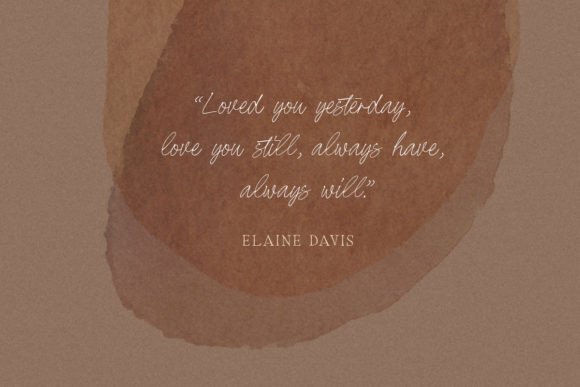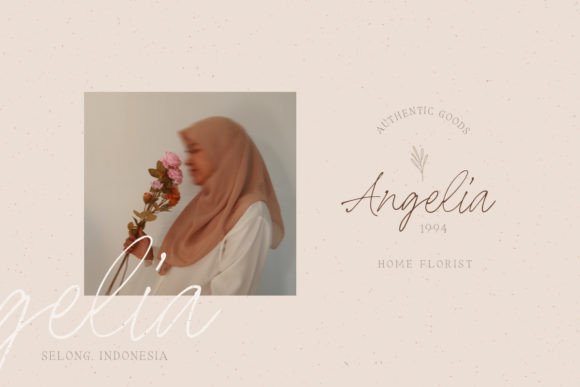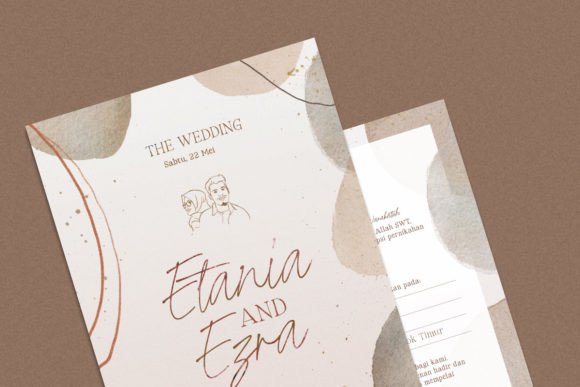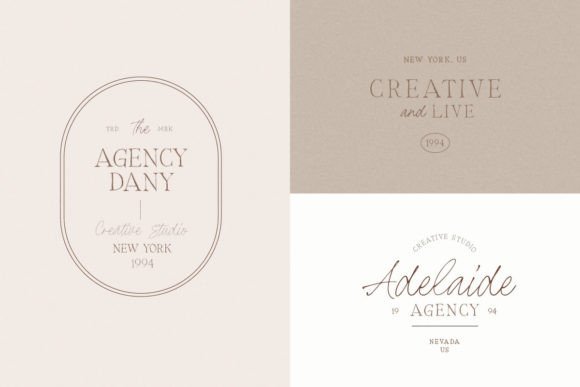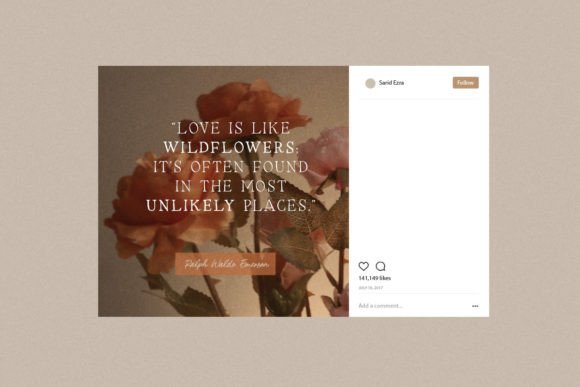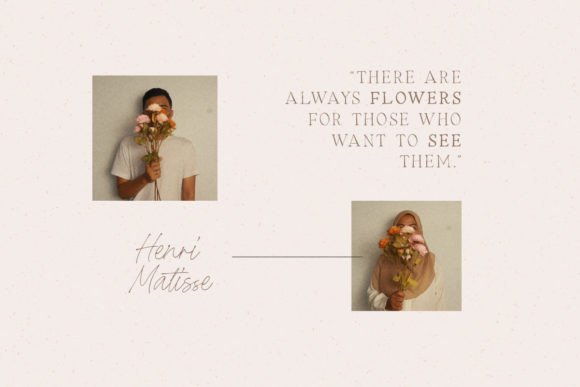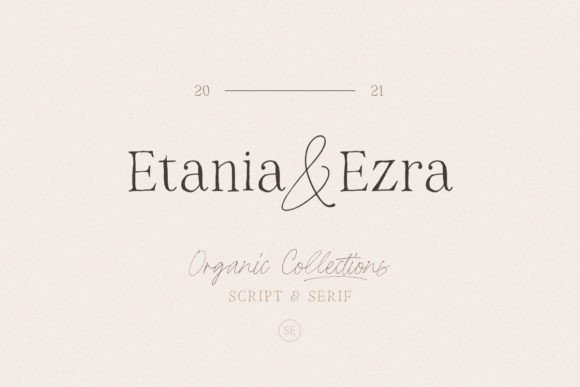
Introducing Etania & Ezra: The Ultimate Serif and Script Duo Font
Are you tired of using the same old fonts for your design projects? Look no further! Etania & Ezra is a fantastic serif and script duo font that exudes authenticity and charm. This stunning font combination is perfect for designers and crafters looking to add a touch of elegance and sophistication to their work.
A Perfect Blend of Minimalism and Versatility
Etania & Ezra is a masterful blend of minimalism and versatility. The serif font, Etania, boasts clean lines and classic elegance, while the script font, Ezra, adds a touch of whimsy and playfulness. Together, they create a unique and captivating visual identity that is sure to elevate your designs.
One of the best things about Etania & Ezra is its incredible versatility. This font duo can be used for a wide range of design projects, from wedding invitations and branding materials to logotypes and quotes. Whether you’re a professional designer or a crafty DIY enthusiast, Etania & Ezra is the perfect choice for anyone looking to create beautiful and eye-catching designs.
Authentic and Handmade Vibes
Etania & Ezra is designed to evoke a sense of authenticity and handmade charm. The fonts feature subtle imperfections and organic shapes that give them a warm and inviting feel. If you’re looking for fonts that will add a touch of personality and character to your designs, Etania & Ezra is the perfect choice.
Perfect for Wedding and Branding Designs
Etania & Ezra is particularly well-suited for wedding and branding designs. The serif font, Etania, is perfect for creating elegant and sophisticated wedding invitations, while the script font, Ezra, adds a touch of romance and whimsy. For branding designs, Etania & Ezra can be used to create unique and memorable logotypes that will help your clients stand out from the crowd.
Key Features of Etania & Ezra
- Serif and Script Duo Font: Etania & Ezra is a versatile font duo that combines the classic elegance of a serif font with the playfulness of a script font.
- Minimalistic yet Versatile: Etania & Ezra is a perfect blend of minimalism and versatility, making it suitable for a wide range of design projects.
- Authentic and Handmade Vibes: Etania & Ezra features subtle imperfections and organic shapes that give it a warm and inviting feel.
- Perfect for Wedding and Branding Designs: Etania & Ezra is particularly well-suited for wedding and branding designs, where its elegance and sophistication can shine.
Tips for Using Etania & Ezra
Etania & Ezra is a fantastic serif and script duo font that is sure to elevate your designs. With its perfect blend of minimalism and versatility, authentic and handmade vibes, and endless design possibilities, Etania & Ezra is the perfect choice for designers and crafters looking to add a touch of elegance and sophistication to their work. Try it out today and see the difference it can make!